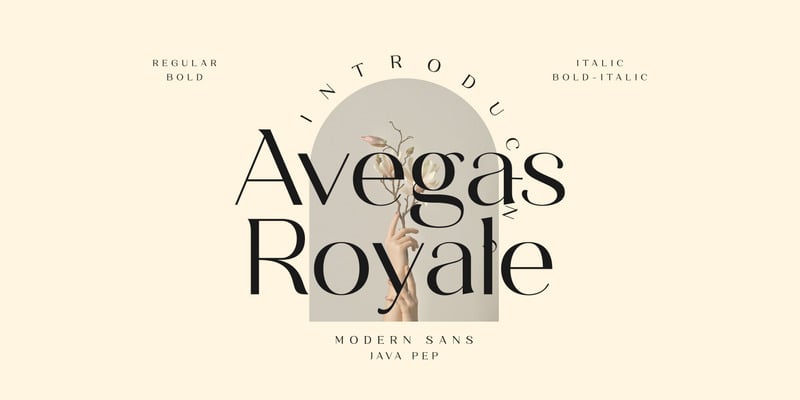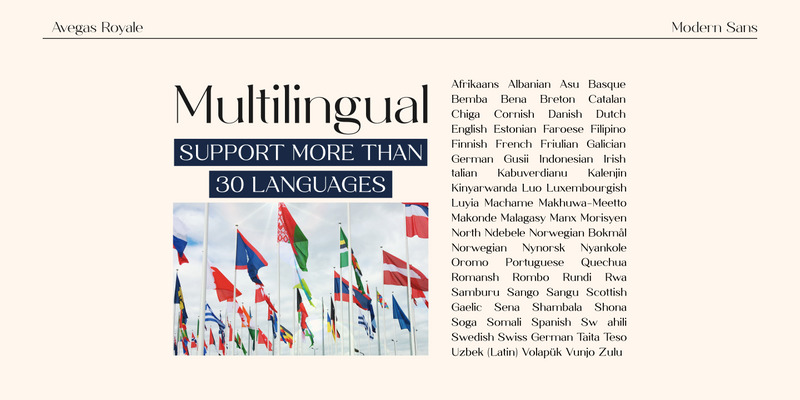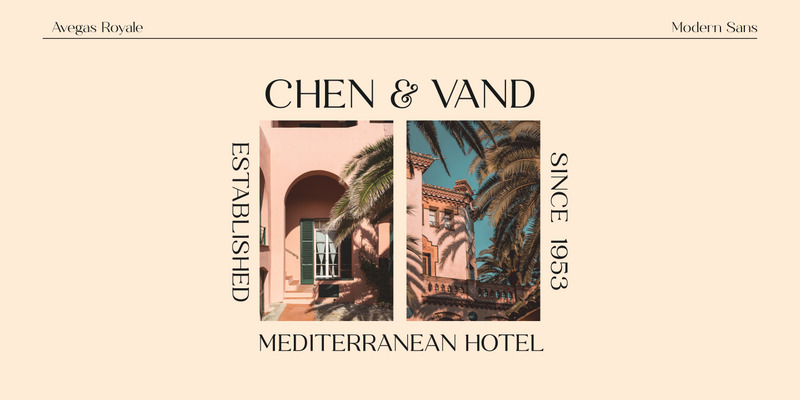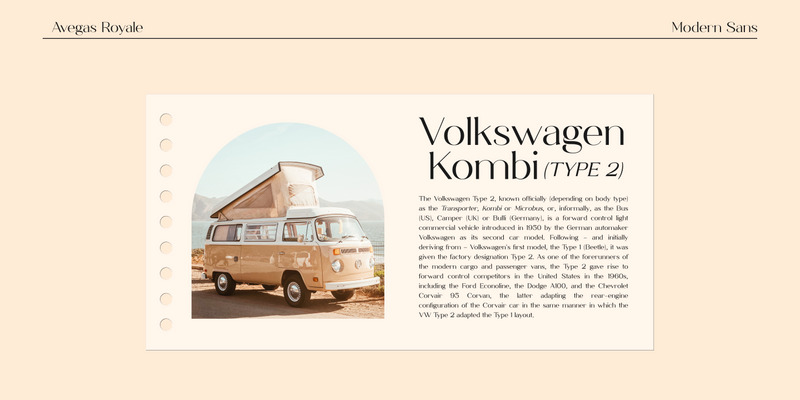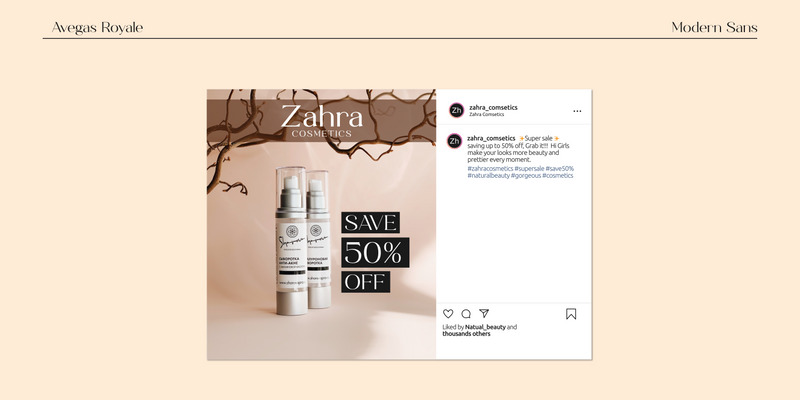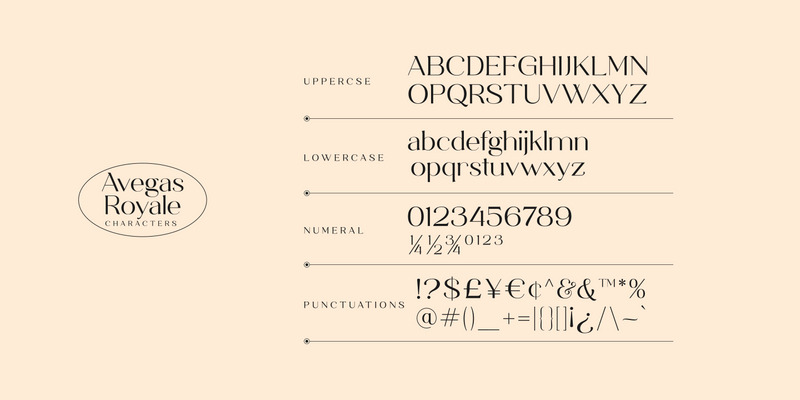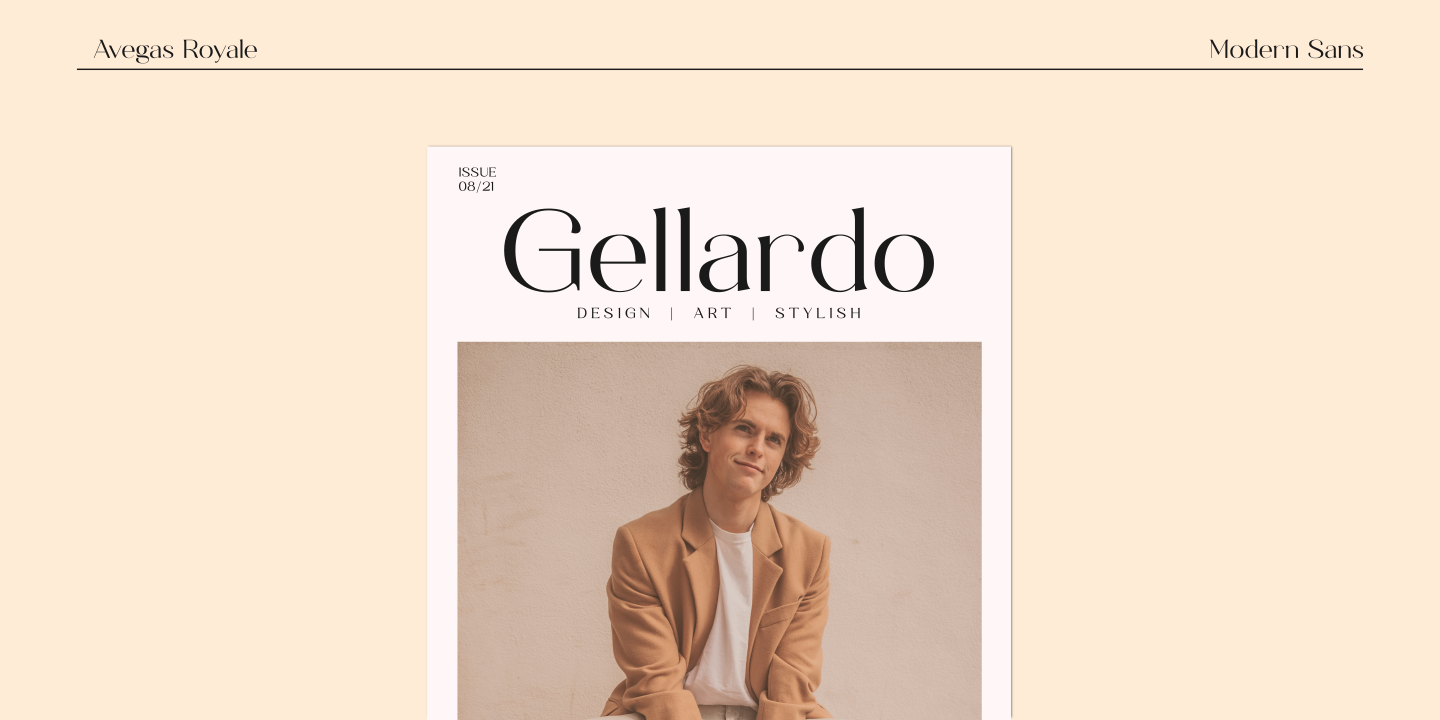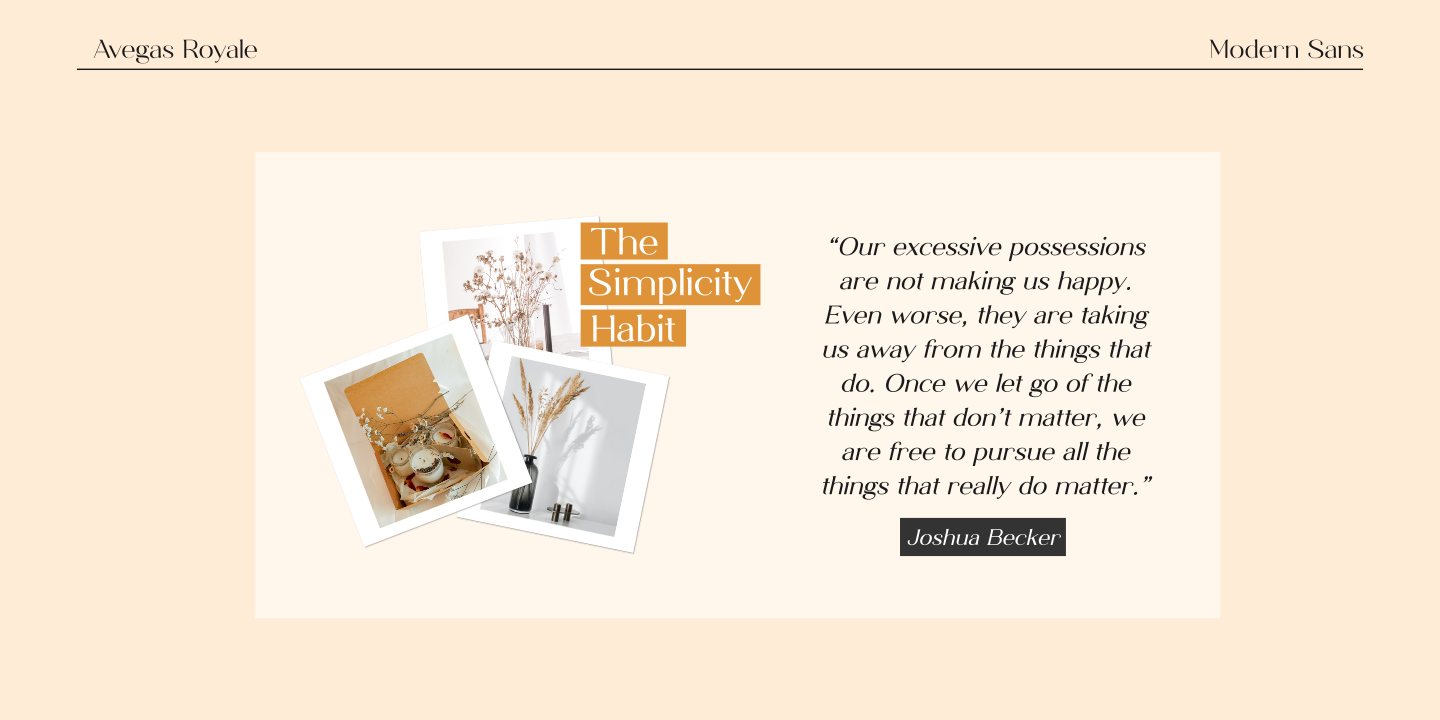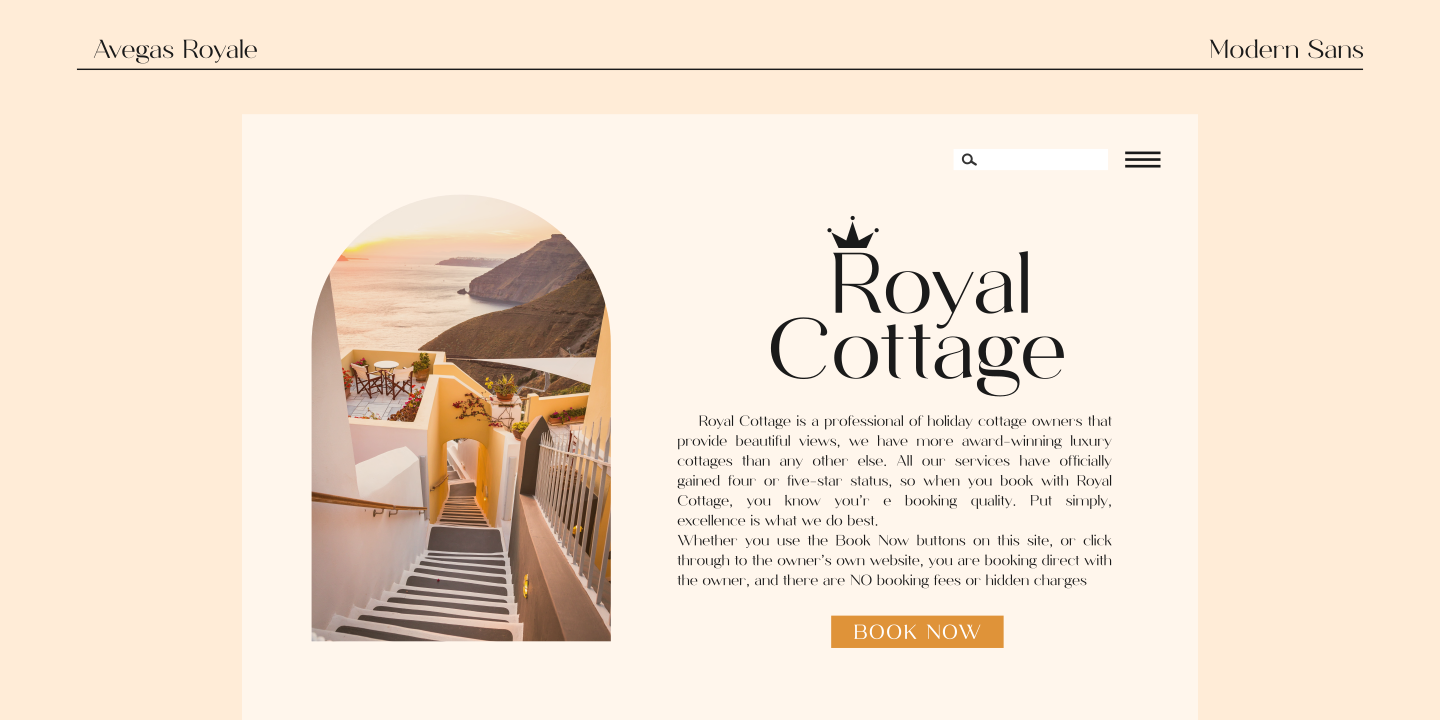
Avegas Royale - Modern Sans
Avegas Royale font is modern sans serif font that is made in 4 styles regular, italic, bold, and bold-italic. The shape is made to contrast curves and lines between light and thick so that it looks more stylish and stands out. This font that perfect for logo, headline, advertising, quote text, invitation card, branding identity, and more.
- Avegas Royale family (regular, italic, bold, and bold-italic)
- Multilingual support more than 30 languages
- Uppercase, lowercase, numeral, and punctuations